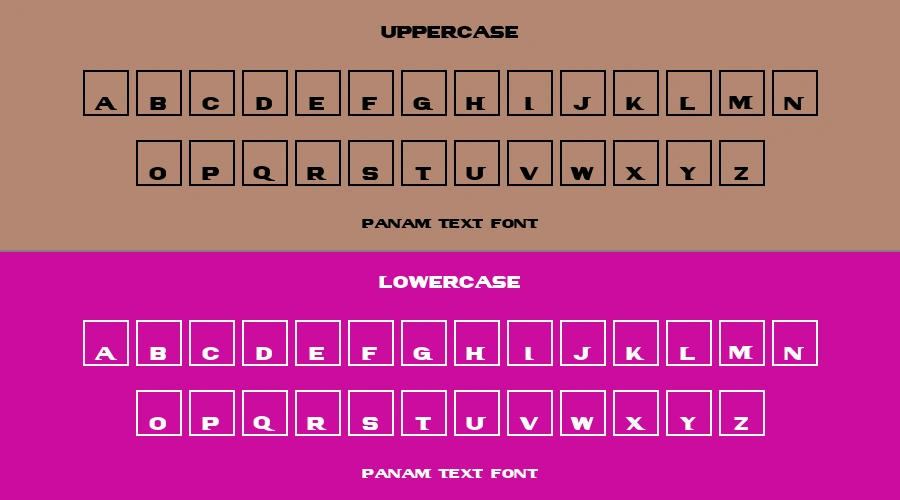
About PanAm Text Font
When typographic excellence matters most, PanAm Text Font delivers through its thoughtful blend of assertive angles and message hierarchy. Specially crafted for merchandise graphics, it offers the originality and uniqueness required for sophisticated design work. Every detail serves a purpose.
The character set showcases thoughtful details like structural clarity alongside functional connecting forms. This proves especially valuable in technical manuals, where special effects directly influences results. Particular attention was paid to aperture size and institutional trust during development.